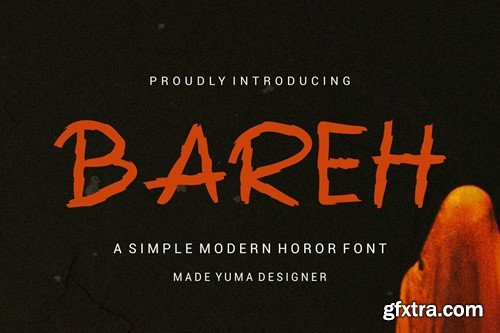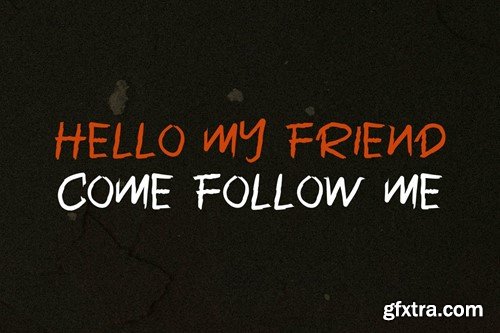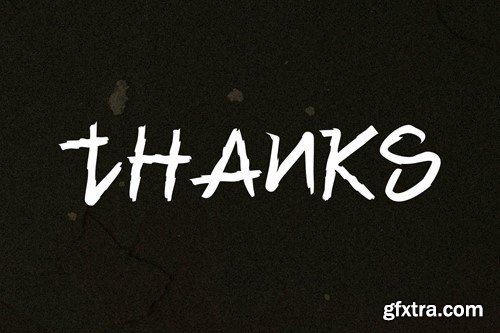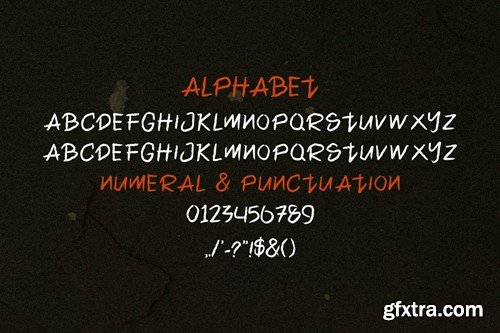
Bareh Font
Bareh Font is a Horror font. Can make it easier to convey the message in your design. Use for awesome display, labeling, clothing, movie sceen, poster, movie title, gigs, album covers, logos, and much more. What you get: Thank you.